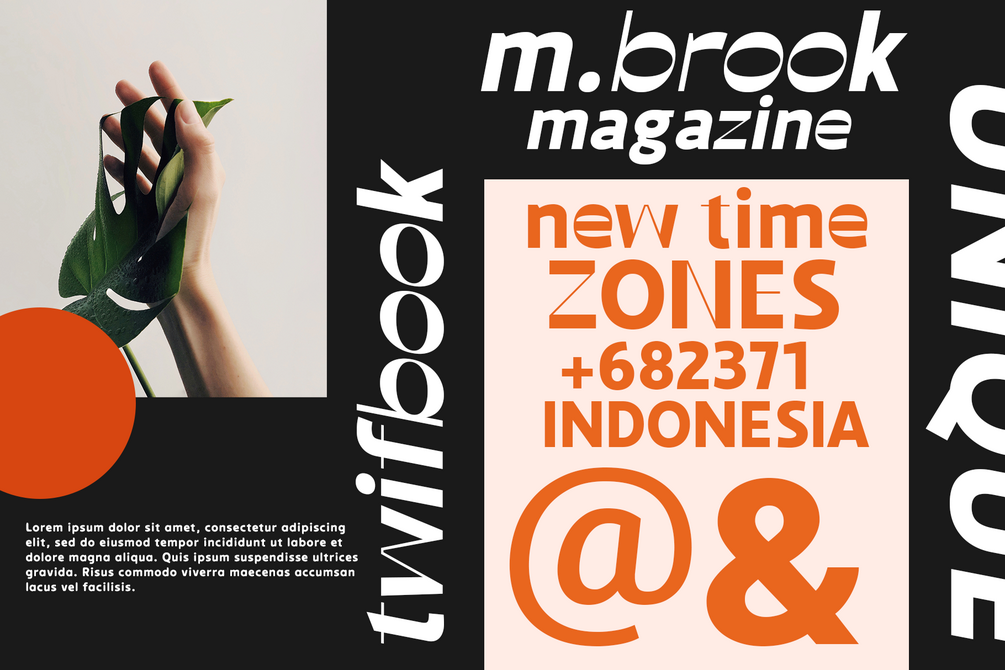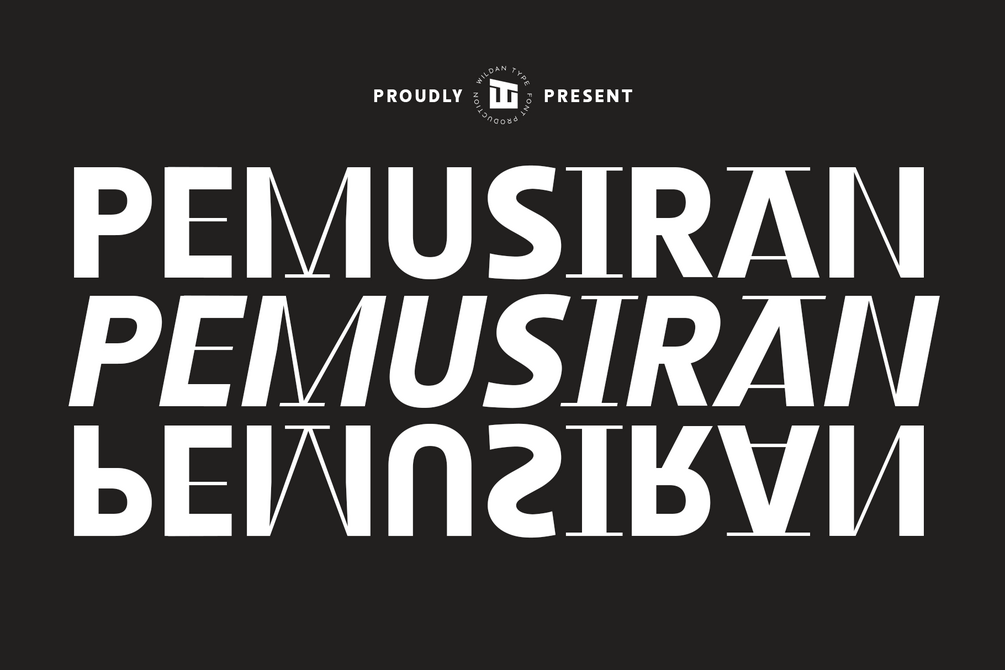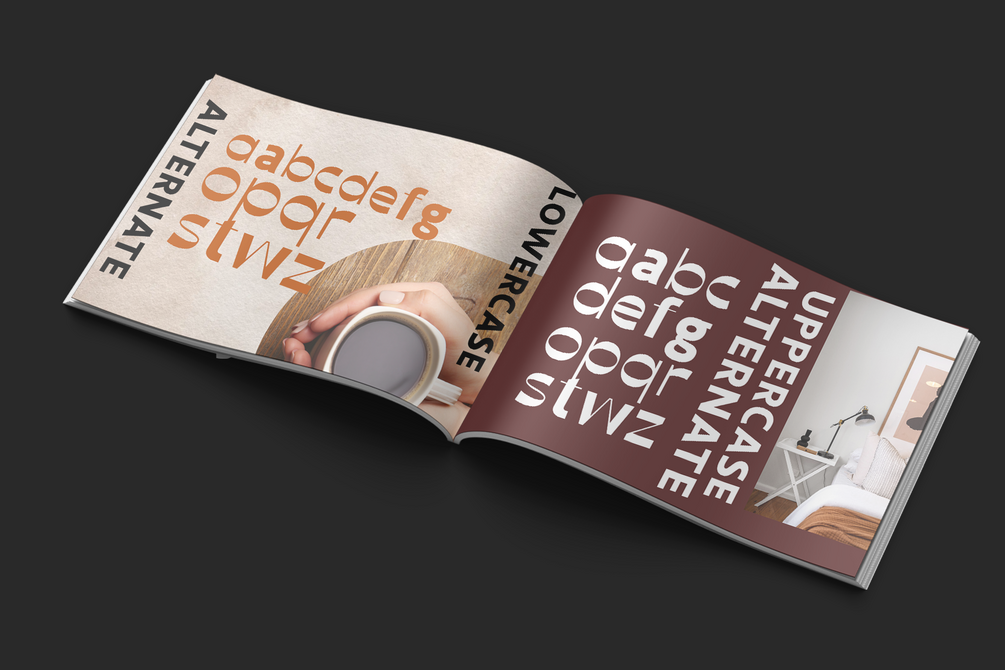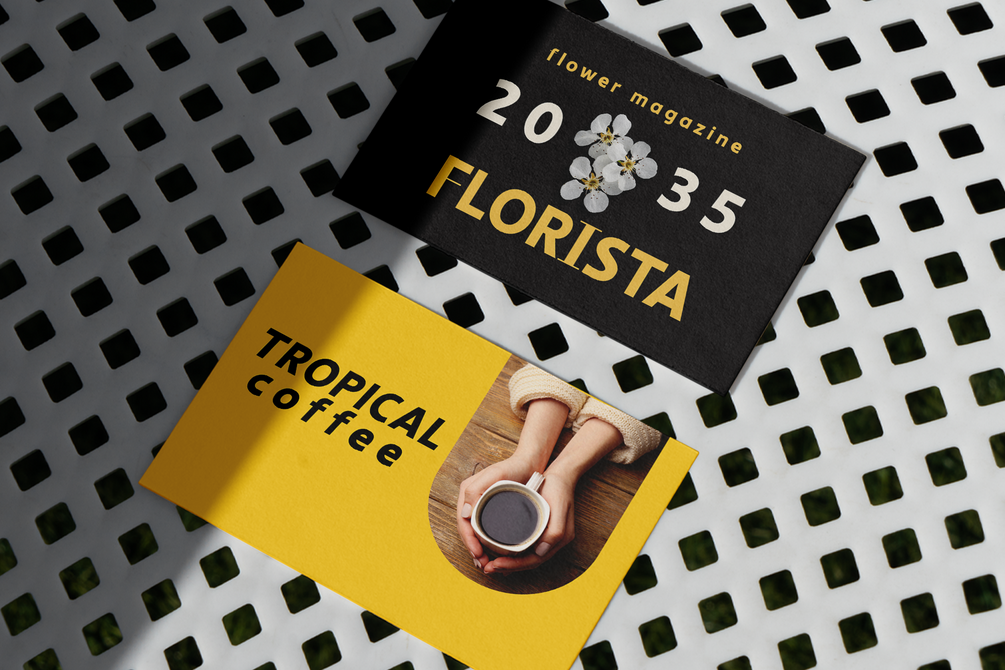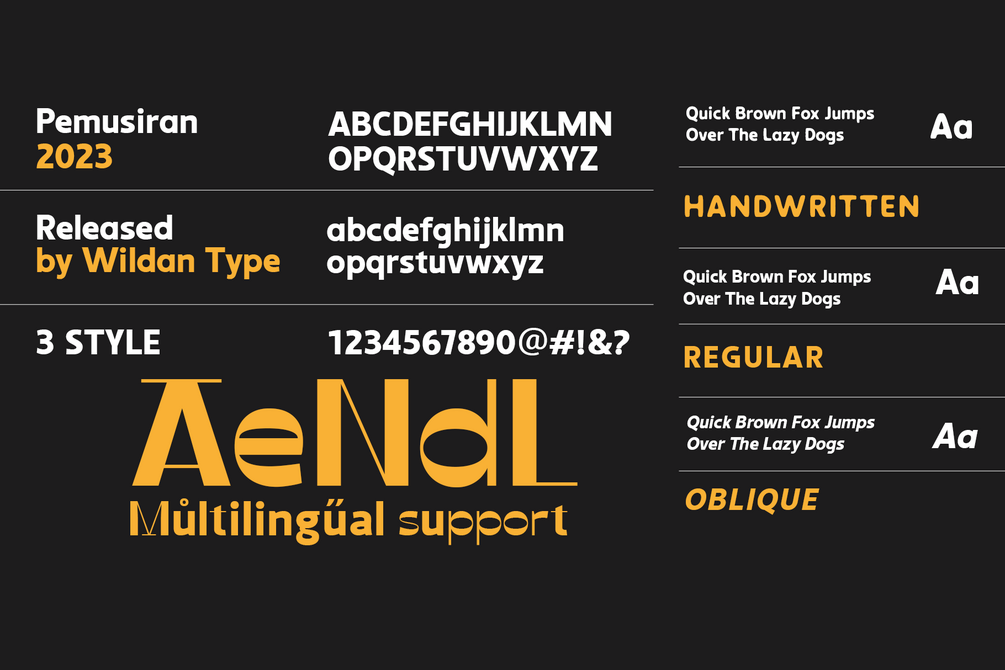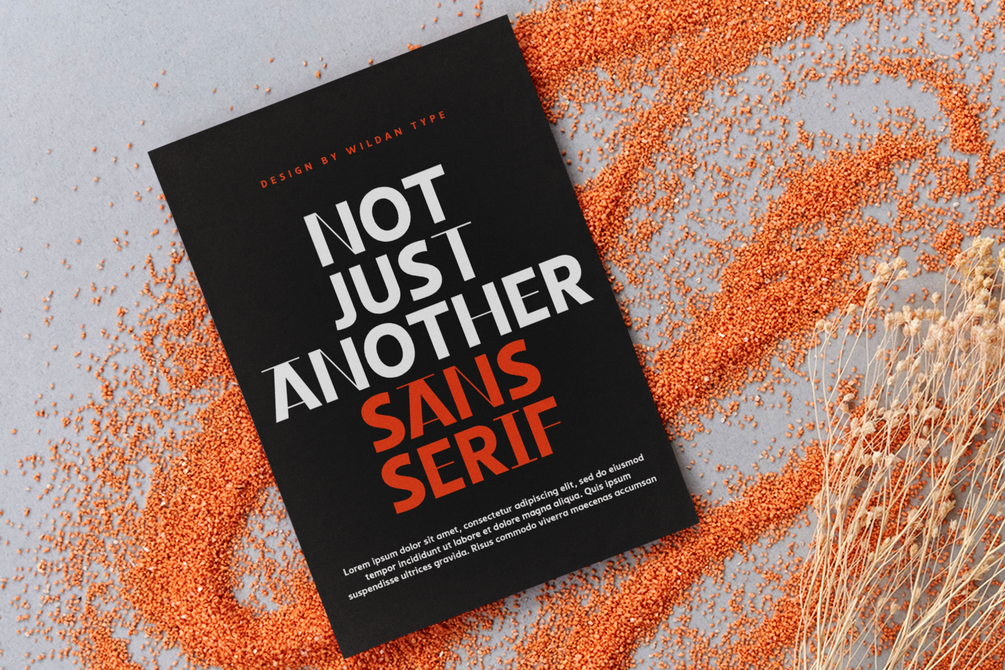
Pemusiran
Looking for a modern and experimental font to make your designs stand out? Look no further than Pemusiran font family! Comes with 3 styles including regular, oblique and handwritten. Pemusiran also include some alternate to make great for your design.
Pemusiran is perfect for creating designs that are modern and confident. With consistent letter width and a high contrast between thick and thin strokes, Pemusiran is sure to grab your audience’s attention.